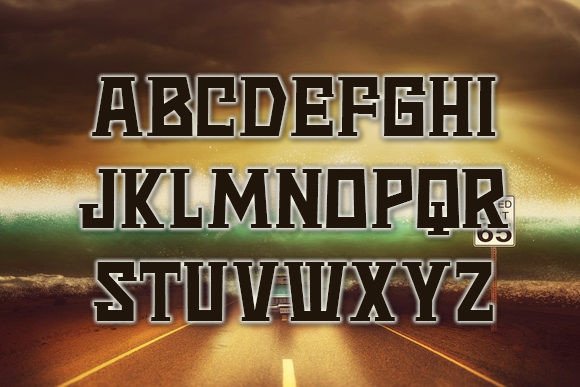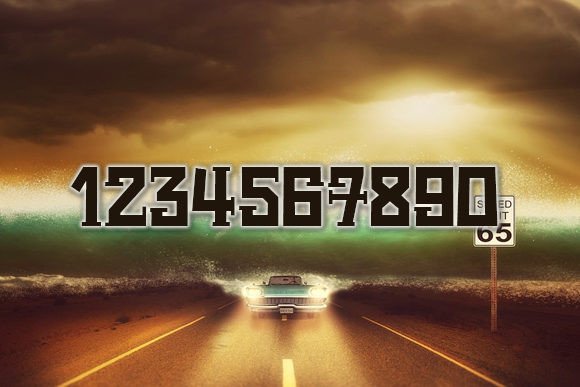
Introduction to Shortcut Font
You’re in the middle of a creative project, and you’re stuck on finding the perfect font to give it that extra oomph. You’ve browsed through countless options, but none seem to capture the essence of your vision. That’s when you stumble upon the Shortcut Font – a stylish squarish font that will revolutionize your design.
As a designer, you know how crucial it is to have high-quality design resources at your fingertips. The Shortcut Font is exactly that – a valuable addition to your toolkit that will elevate your designs to the next level. Whether you’re creating posters, flyers, or shirts, this font is sure to make a statement.
With its sleek, modern aesthetic and transparent background, the Shortcut Font is perfect for designers who crave a unique and eye-catching design element. And the best part? It’s available for free download, making it an invaluable resource for creatives on a budget.
Key Features of Shortcut Font
- Unique, modern design with a transparent background, perfect for creative projects.
- High-quality font with a clear, readable style, ideal for use as a design resource.
- Includes 100+ glyphs, covering a wide range of languages and characters.
- Perfect for use in logos, branding, and other creative projects where a modern, clean font is desired.
Honest Review: Shortcut Font
I recently stumbled upon the Shortcut Font, and I must say it’s been a game-changer for my creative projects. As a designer, I’m always on the lookout for high-quality fonts that can elevate my designs.
Here’s what works well:
- ✨ Sleek and modern design aesthetic that’s perfect for modern branding and UI design.
- ✨ Transparent background option allows for seamless integration into any design project.
However, I do have a few concerns:
- ⚠️ Limited font styles and weights, which might not be ideal for complex design projects.
- ⚠️ Some users might find the font to be a bit too minimalist for their taste.
Overall, I’m impressed with the Shortcut Font’s simplicity and versatility. It’s an excellent addition to any designer’s toolkit, especially for those working on modern creative projects. With a few minor limitations, it’s a fantastic free download that’s definitely worth checking out.
Shortcut Font: Unlocking Creative Possibilities
Use the Shortcut Font in a variety of creative projects, including:
- Graphic design and visual identity projects
- Infographics and data visualization
- Web design and UI/UX projects
- Print materials and marketing materials
Tips for Getting the Most Out of Shortcut Font
To get the most out of the Shortcut Font, try the following:
- Use the font’s transparent background feature to create stunning visuals
- Combine the Shortcut Font with other design elements to create unique and eye-catching designs